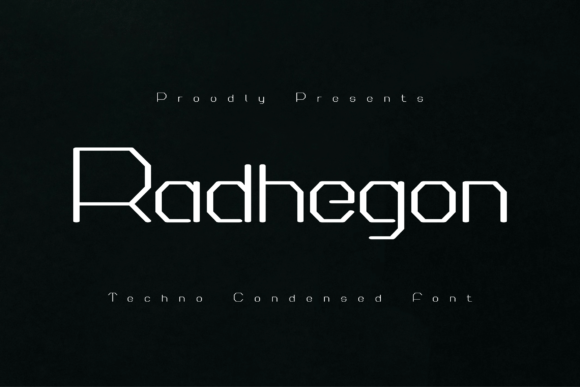
Behold, the Radhegon Font: An Ode to Elegance and Modernity!
Immerse yourself in the captivating world of Radhegon, a sans serif font that exudes grace and sophistication. Crafted with an unwavering attention to detail by the esteemed designer ponuppo, Radhegon is not merely a font but a testament to the transformative power of typography.
Unleash your creativity with Radhegon, the perfect font for those who seek to make a statement. Its clean lines and chic aesthetic lend an air of professionalism and polish to any project. Whether you're designing business papers, fashion catalogs, or captivating social media posts, Radhegon will elevate your words and captivate your audience.
For those who dare to be different, Radhegon offers a unique blend of classicism and modernity. Its timeless elegance evokes the sophistication of bygone eras, while its contemporary flair ensures it remains relevant in the digital age. Each letterform is meticulously designed to create a harmonious balance between legibility and visual appeal.
Step into the world of Radhegon, where your words will dance with style and your designs will radiate confidence. This is the font that will turn your creative visions into reality, the font that will make your brand stand out from the crowd.
Don't settle for ordinary fonts; embrace the extraordinary with Radhegon. Its versatility knows no bounds, from corporate presentations to personal branding. Let Radhegon be your secret weapon, the font that empowers you to communicate with clarity, impact, and an unforgettable touch of elegance.